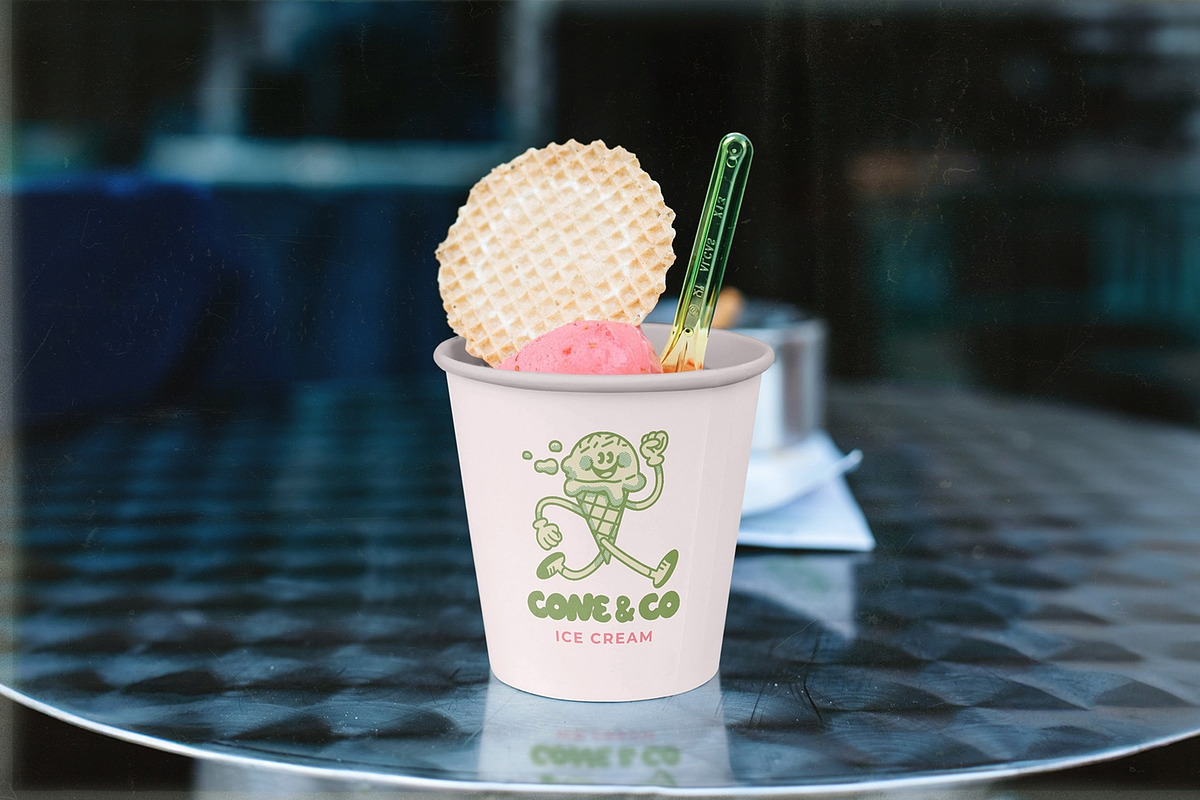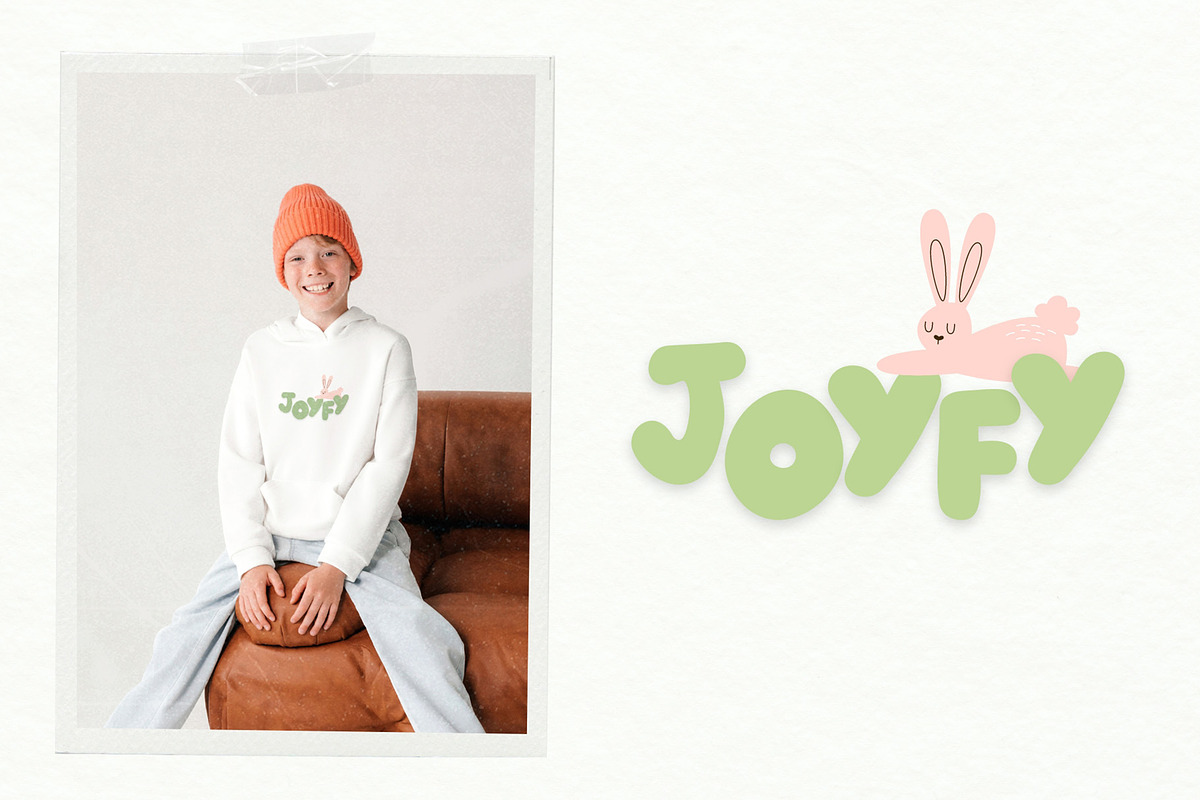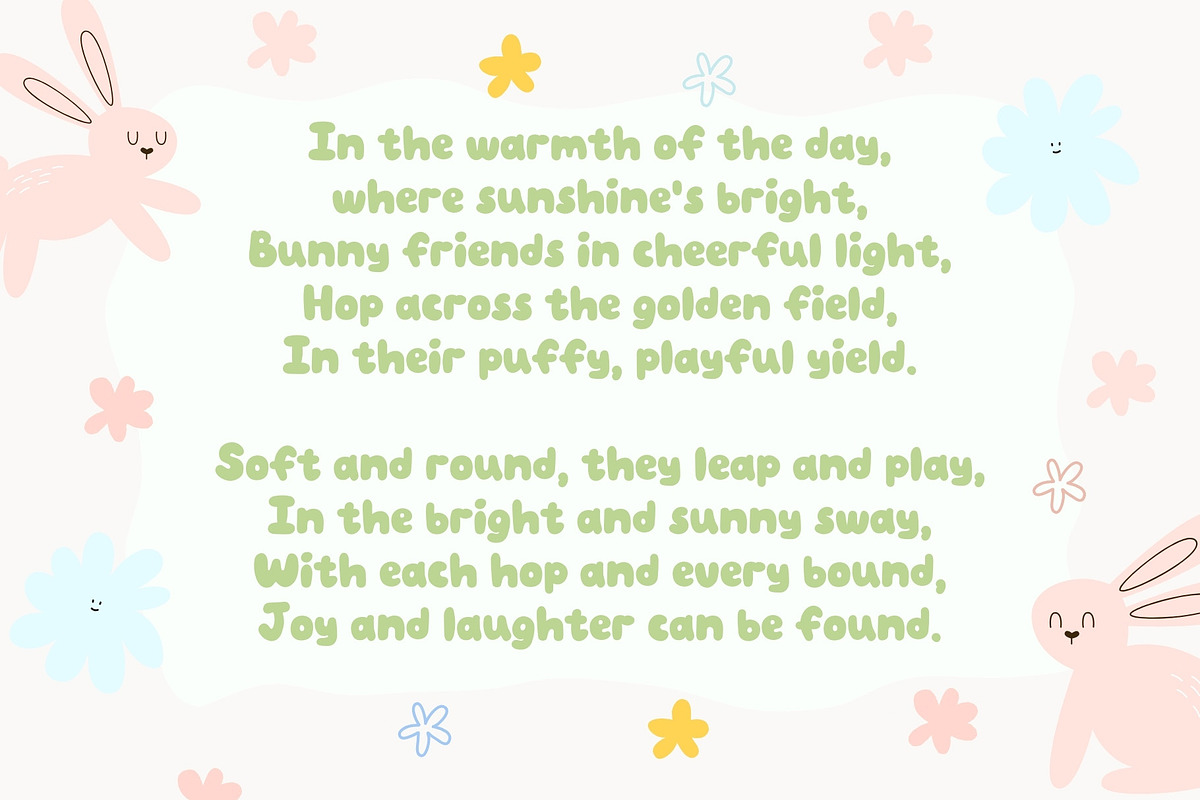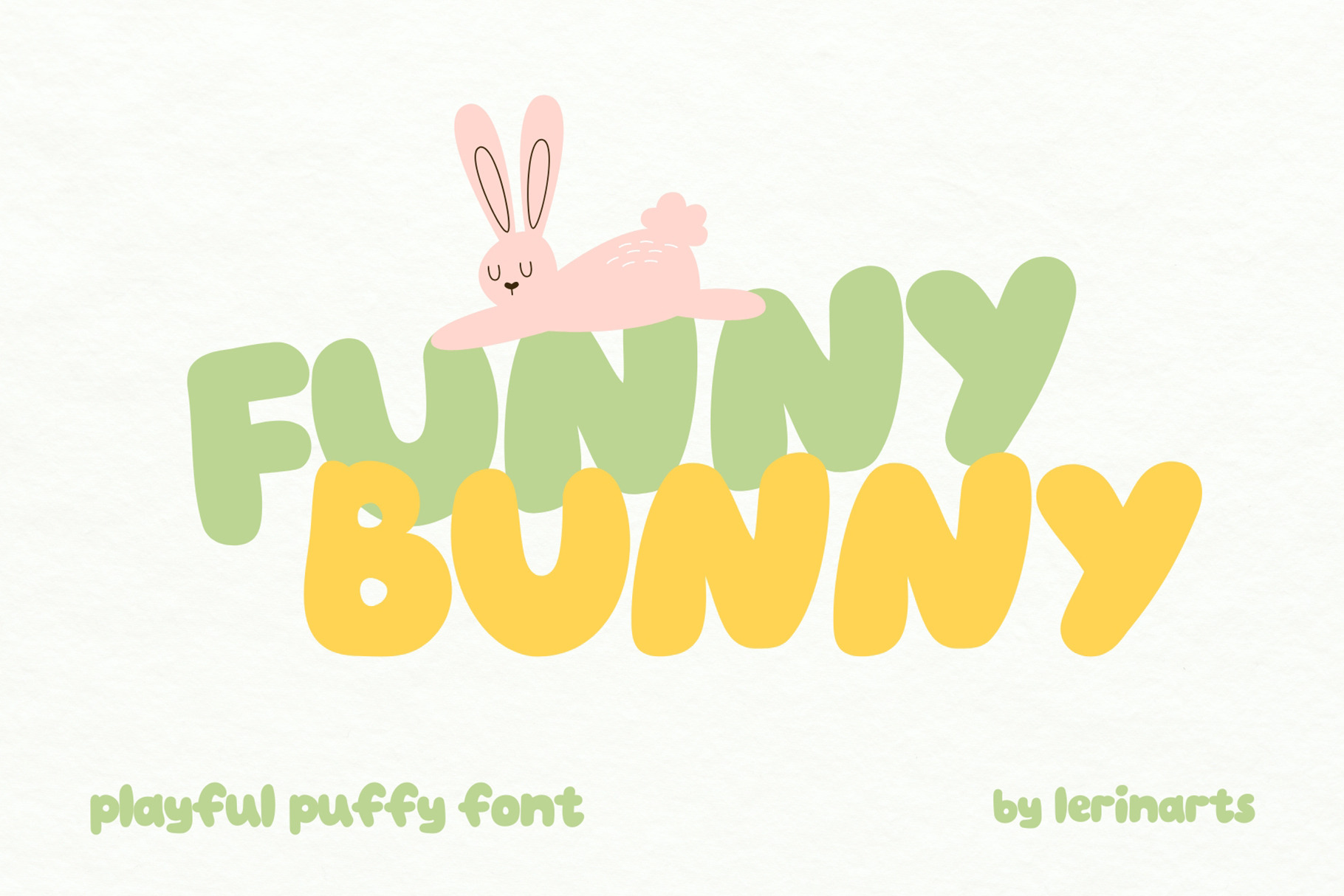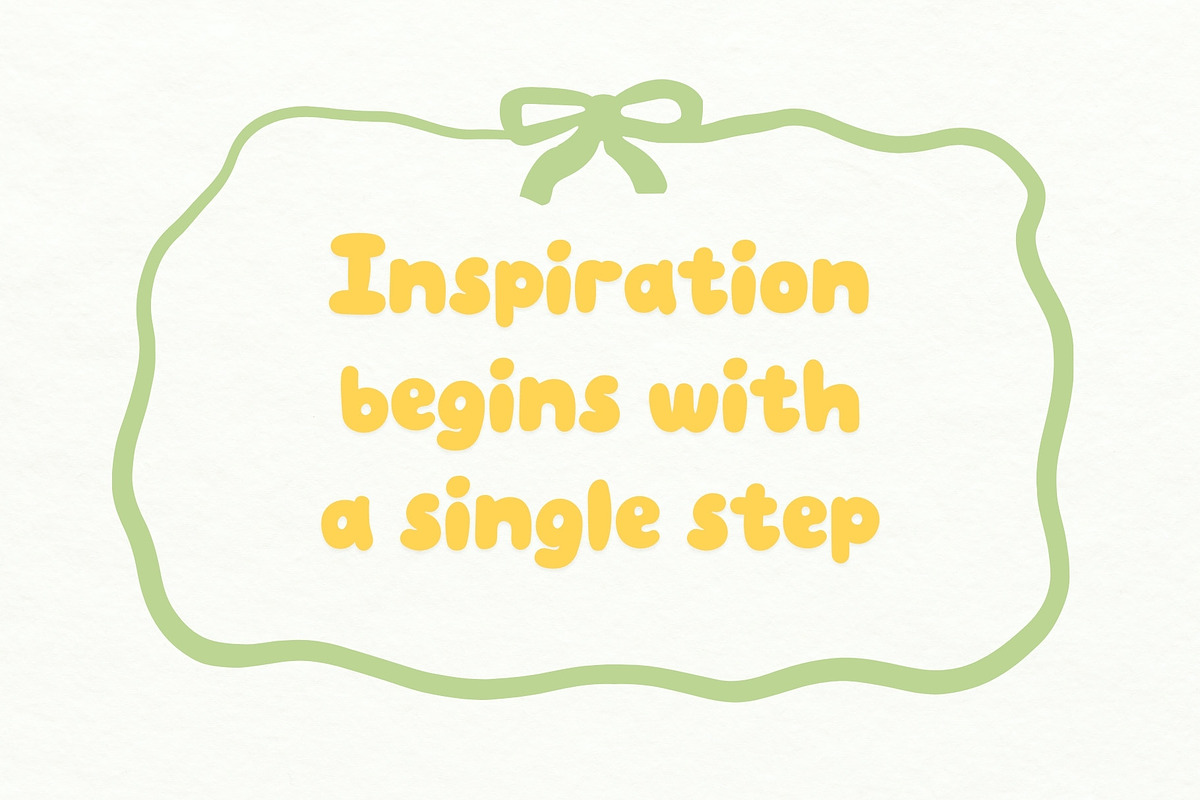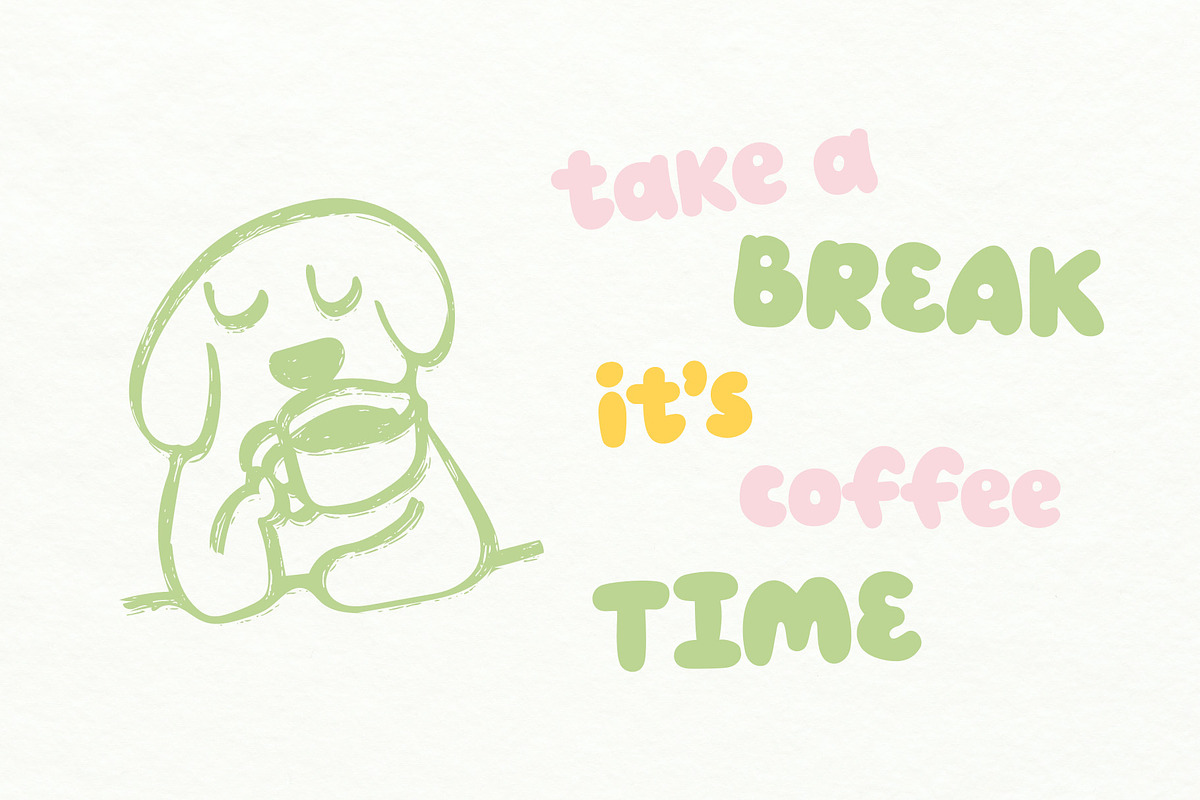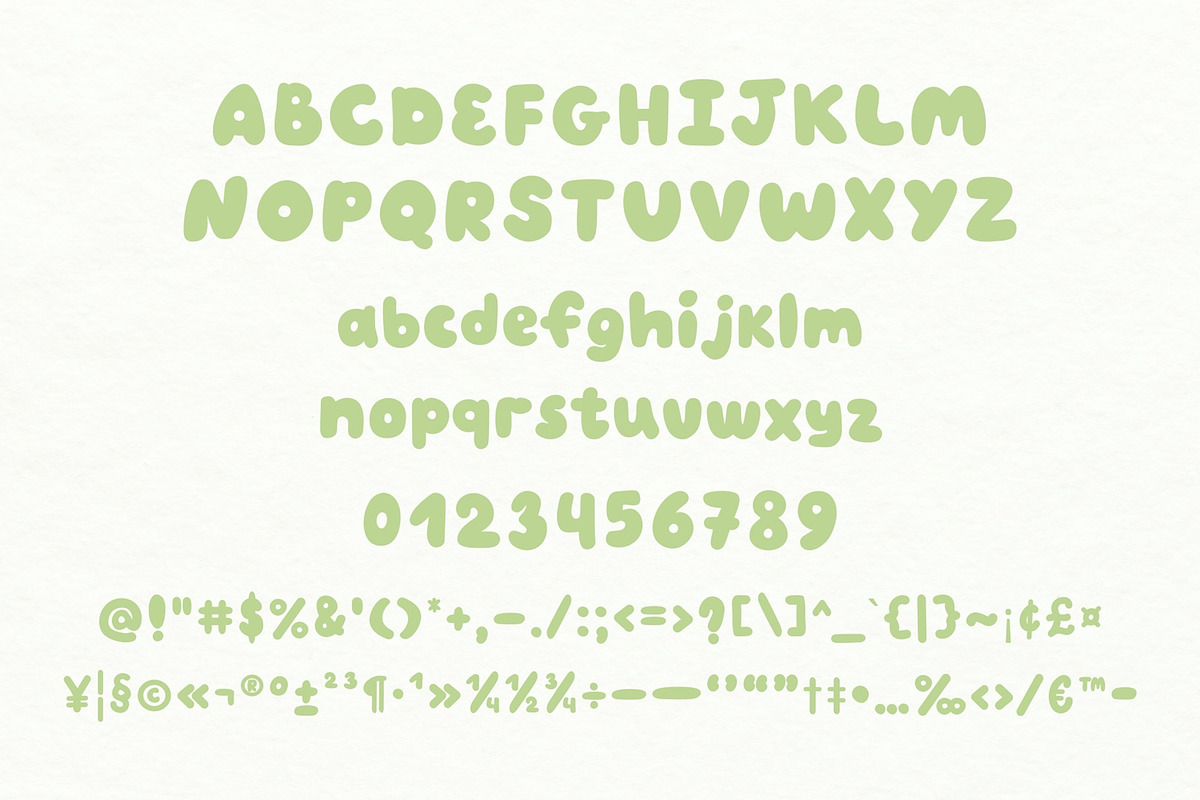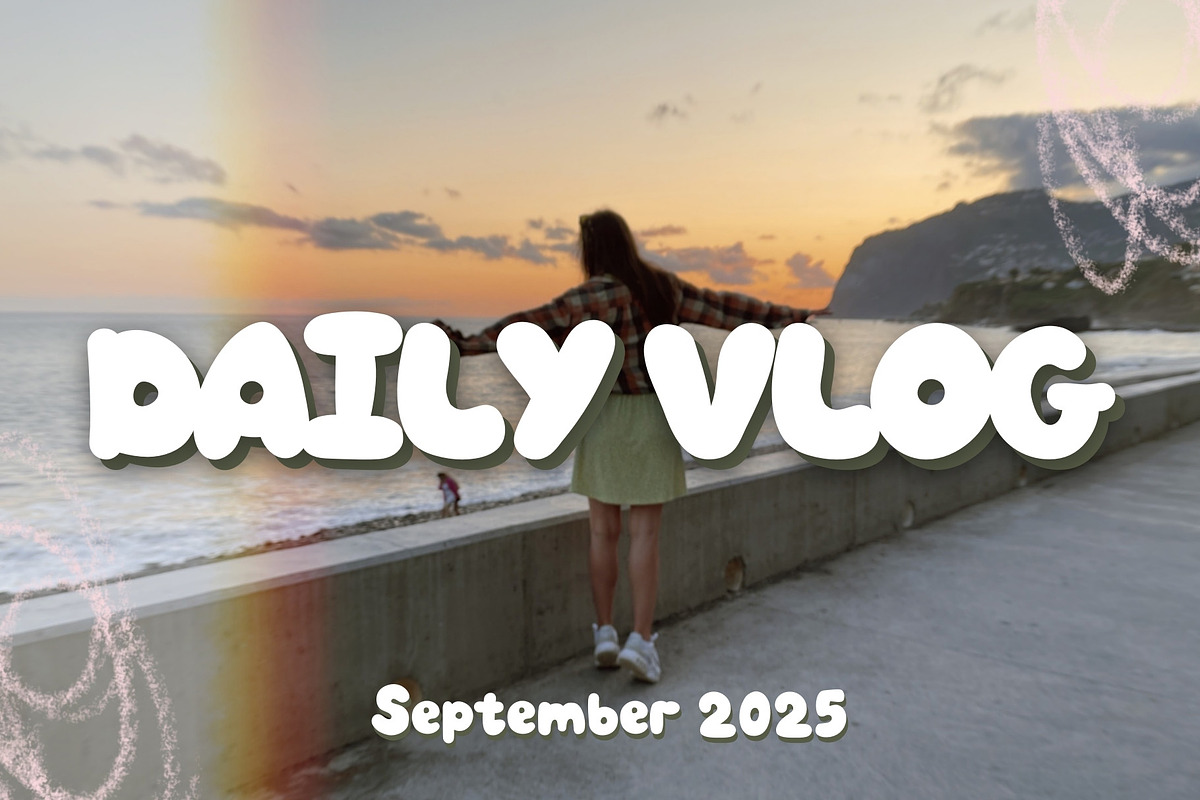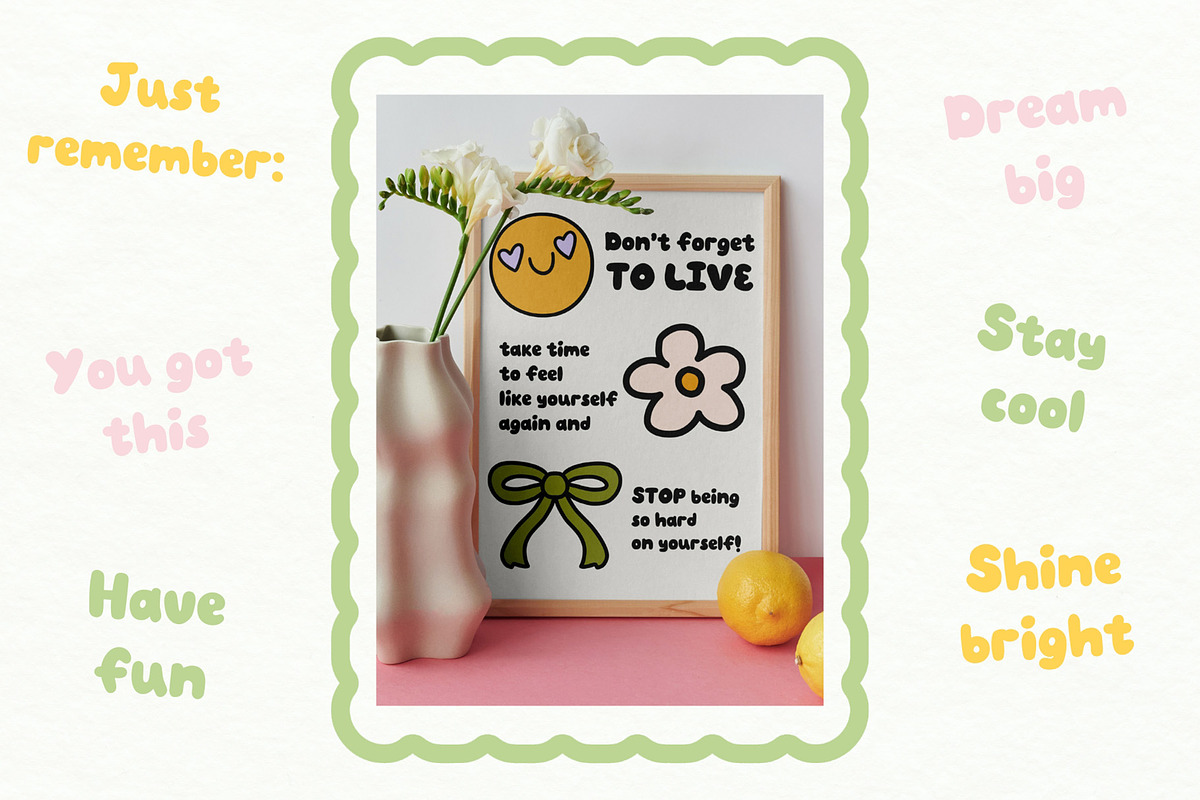
Funny Bunny playful handwritten font
Funny Bunny is a playful and puffy font designed to brighten up your projects!
it’s perfect for a wide range of creative projects: children's products, posters, logos, headers, product packaging, and social media graphics.
It’s especially well-suited for:
- Playful logo designs;
- Kids illustrations and posters;
- Merchandise and apparel;
- Greeting cards and invitations;
- Website banners with a whimsical vibe
Use Funny Bunny to add a touch of fun and joy to your designs!
- Full alphabet set (uppercase and lowercase);
- Numerals and punctuation;